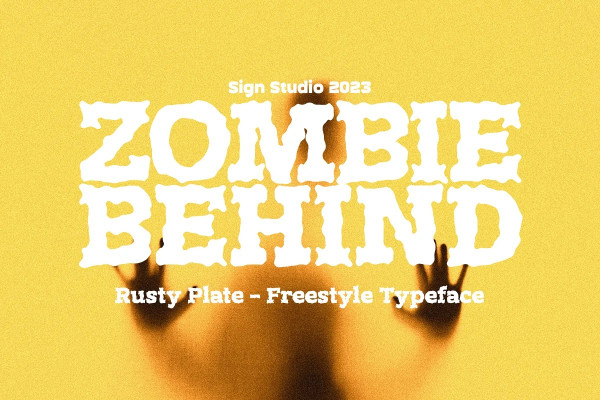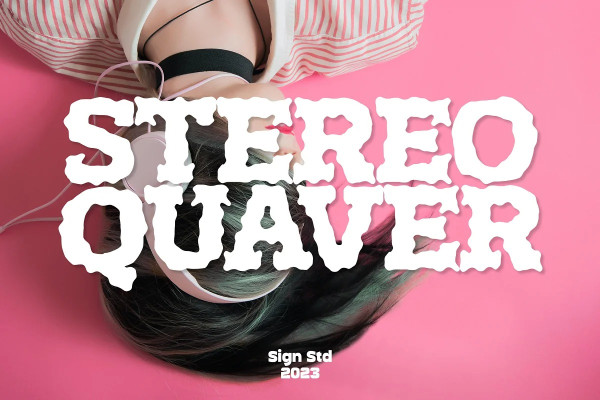
Rusty Plate Font
Rusty Plate Font is a font for display purposes that reflects creative and natural. It will be suitable for making a dramatic impression on posters, brochures, apparel, logotypes and many other types of print. This font is PUA encoded which means you can access all of the glyphs and alternates with ease.